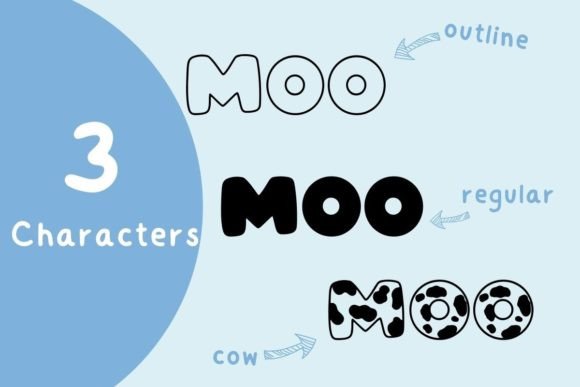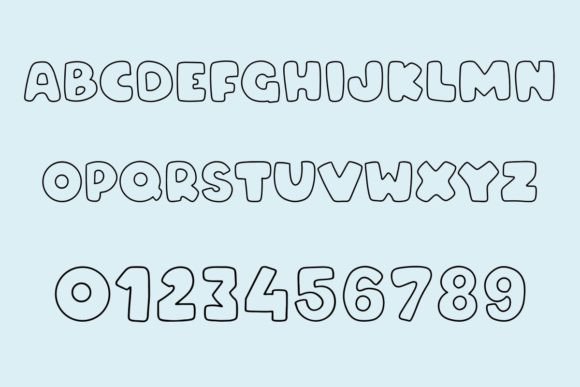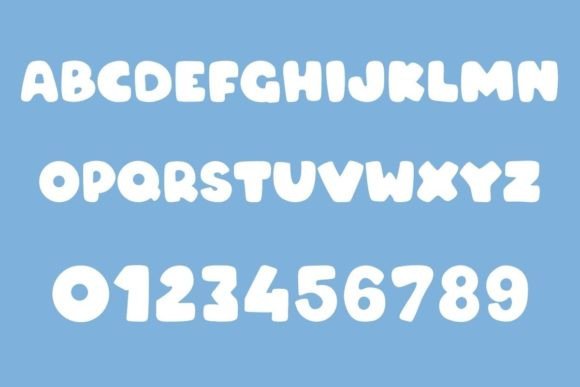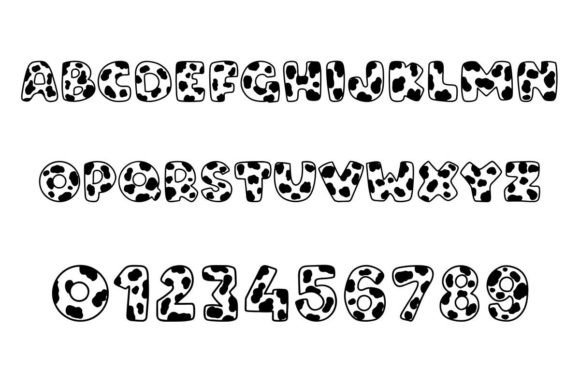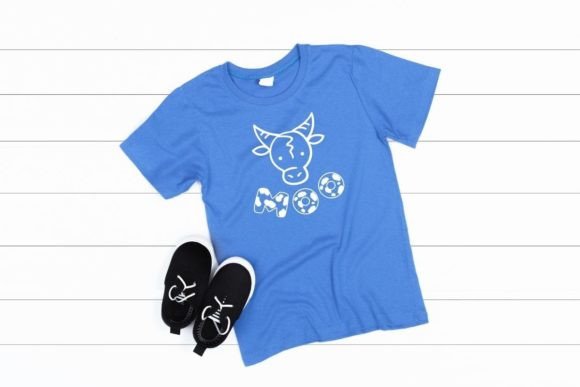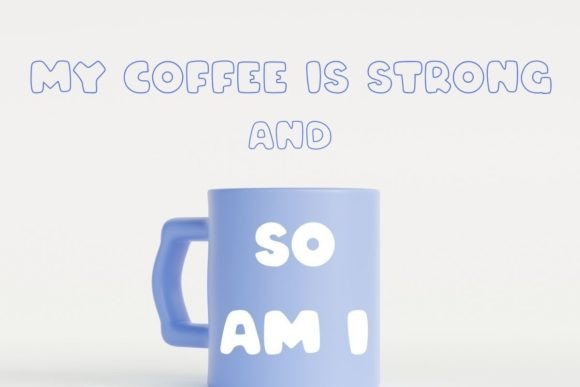
Introduction to Happy Cow Font
Do you remember the excitement of creating something from scratch, only to see it come together in a way that’s more beautiful than you ever imagined? For designers, that moment is what it’s all about. And when it comes to adding a touch of whimsy and personality to our creative projects, there’s one font that stands out from the rest: Happy Cow Font.
Whether you’re working on a children’s game, a cartoon-inspired design, or simply want to add a playful twist to a quote or title, Happy Cow Font is the perfect choice. Its bold and friendly style is sure to bring a smile to your face and a sense of joy to your design. And the best part? It’s a high-quality font that’s available for free download, making it a valuable resource for designers of all levels.
Key Features of Happy Cow Font
- High-quality design resource for creative projects: Happy Cow Font is a unique and playful font perfect for adding a touch of whimsy to your designs.
Honest Review: Happy Cow Font
As a designer, I’m always on the lookout for high-quality design resources that can elevate my creative projects. Recently, I came across the Happy Cow Font, and I was excited to give it a try.
One of the things that stood out to me about the Happy Cow Font is its unique, playful style. The font is perfect for creating a fun and energetic vibe in your designs, making it ideal for projects like social media graphics, advertisements, and children’s book illustrations. ✨
Here are some of the key features that make the Happy Cow Font a great addition to your design arsenal:
- High-quality design that looks great on a transparent background
- Perfect for creating a fun and playful vibe in your designs
- The font may not be suitable for professional or formal designs, as it can come across as too casual
- The font family is relatively small, with only a few styles available
- ⚠️ Some users may find the font to be a bit too loud or overwhelming, so use it sparingly
Overall, I was impressed with the Happy Cow Font, and I think it’s a great addition to any designer’s toolkit. Just be mindful of the potential limitations, and use it to create fun and playful designs that really pop.
The Happy Cow Font is perfect for a variety of creative projects, including logos, brochures, posters, and social media graphics. Its high-quality design and transparent background make it ideal for use in a variety of design applications.